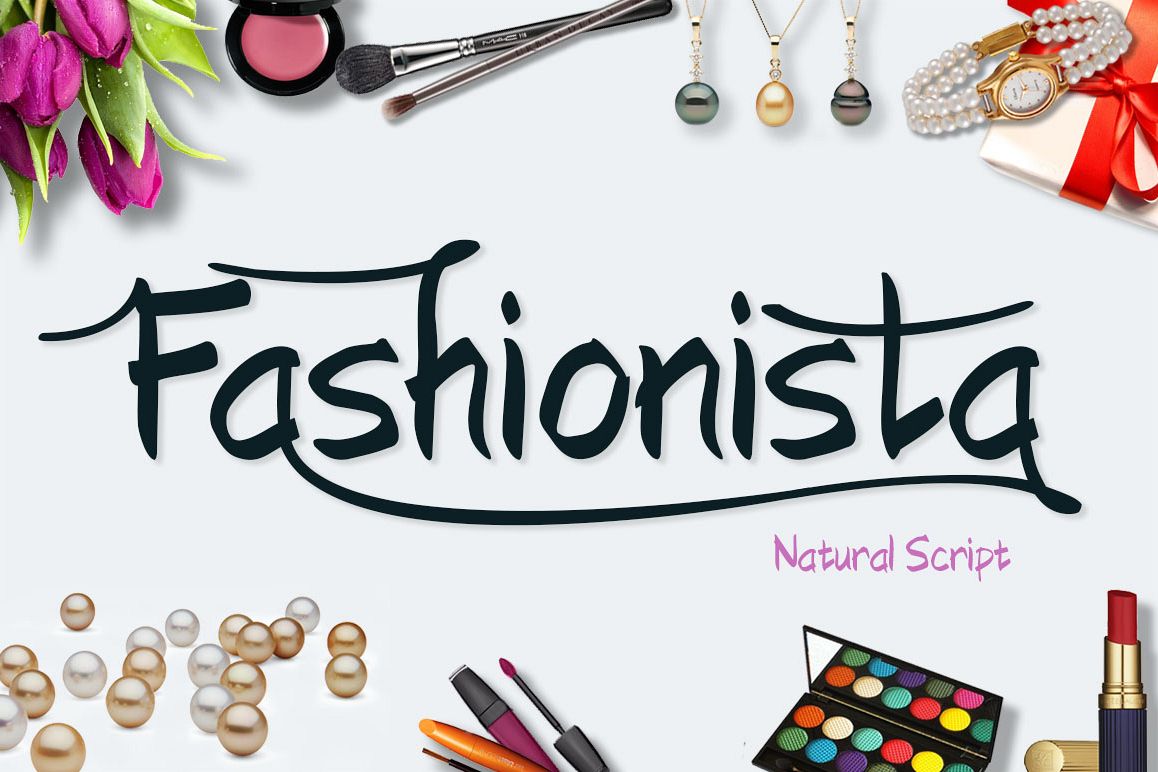
Fashionista
Fashionista.
Fashionista is a beautiful natural script font. The hard straight lines with rounded endings might give it a bit of a Chinese look and feel.
The lines are pretty thick and it gives you the feeling it has been written with a marker.